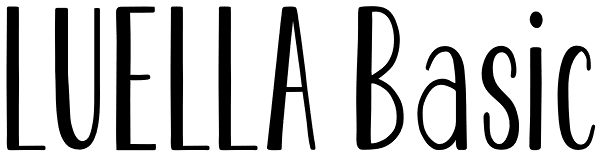
LUELLA
Luella is an elegant, hand drawn vintage inspired font by Cultivated Mind. Luella has been carefully crafted and comes in three weights (Regular/Bold/Black). This font works perfectly with the Luella frames and ornaments sets.
LUELLA Basic Black
LUELLA Basic Bold
LUELLA Basic